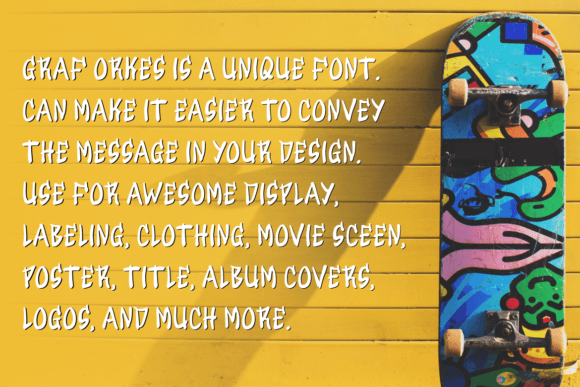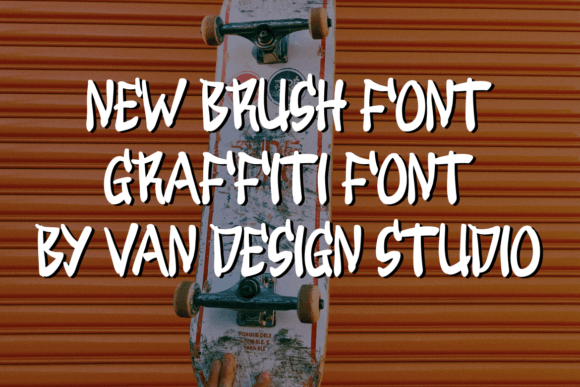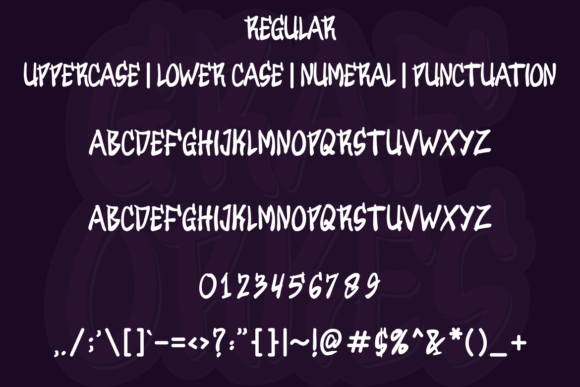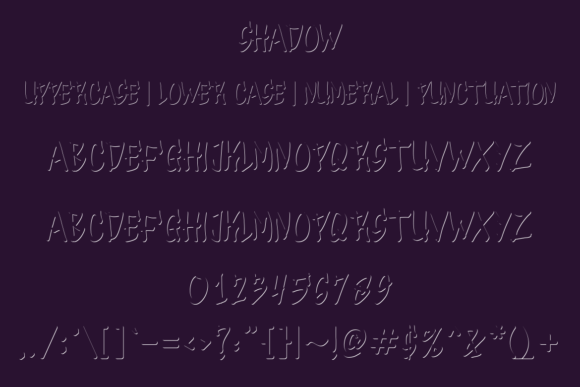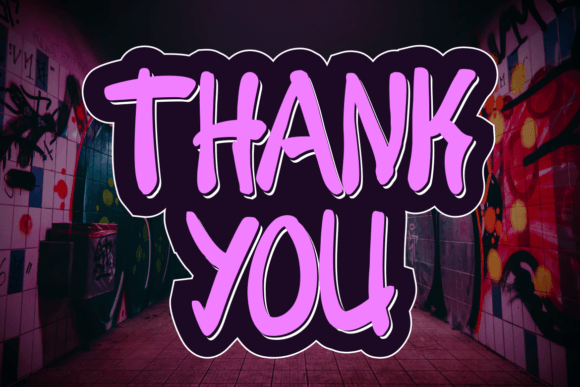
Discover the Magical World of Design with Graf Orkes Font
Graf Orkes is an incredibly cool and unique display font that has been making waves in the design community. With its modern yet whimsical style, this font is sure to immerse your designs into a magical world that captivates and delights. Whether you’re a designer, crafter, or simply someone who appreciates the art of typography, Graf Orkes Font is a must-have in your collection.
The Unique Charm of Graf Orkes Font
What sets Graf Orkes apart from other fonts is its distinctive blend of modernity and playfulness. The font features bold, expressive lines and a quirky charm that gives it a one-of-a-kind personality. Its unique character makes it perfect for designs that require a touch of whimsy, such as children’s books, posters, and social media graphics.
Key Features of Graf Orkes Font
- Modern yet Whimsical Style: Graf Orkes boasts a fresh and contemporary look that is both modern and playful.
- Unique Character: The font’s distinctive lines and curves give it a quirky charm that sets it apart from other fonts.
- Highly Versatile: Graf Orkes can be used for a wide range of design projects, from digital graphics to print materials.
- Easily Readable: Despite its unique style, Graf Orkes remains highly legible, making it perfect for use in body text as well as headlines.
Graf Orkes Font is a dream come true for designers and crafters who are looking to add a touch of magic to their work. With its wide range of applications, this font can be used to create everything from eye-catching posters and flyers to beautiful stationery and crafts. Whether you’re working on a commercial project or a personal passion project, Graf Orkes is sure to inspire your creativity and take your designs to the next level.
Tips for Using Graf Orkes Font
To get the most out of Graf Orkes Font, here are a few tips to keep in mind:
- Experiment with Different Sizes: Graf Orkes looks great in large display sizes, but it can also be used effectively in smaller sizes for body text and captions.
- Play with Color: The font’s bold lines and quirky charm make it perfect for use with bright, bold colors.
- Mix and Match with Other Fonts: Graf Orkes pairs well with a wide range of fonts, so don’t be afraid to experiment with different combinations.
Where to Use Graf Orkes Font
Graf Orkes Font can be used in a wide range of design projects, including:
- Posters and Flyers: The font’s bold, eye-catching style makes it perfect for use in posters and flyers.
- Social Media Graphics: Graf Orkes is a great choice for social media graphics, including Facebook posts, Instagram stories, and Twitter headers.
- Children’s Books and Educational Materials: The font’s playful style makes it a great choice for children’s books and educational materials.
- Stationery and Crafts: Graf Orkes can be used to create beautiful stationery, crafts, and other handmade projects.
In conclusion, Graf Orkes Font is an incredibly cool and unique display font that is sure to immerse your designs into a magical world. With its modern yet whimsical style, this font is perfect for designers, crafters, and anyone who appreciates the art of typography. Whether you’re working on a commercial project or a personal passion project, Graf Orkes is sure to inspire your creativity and take your designs to the next level.